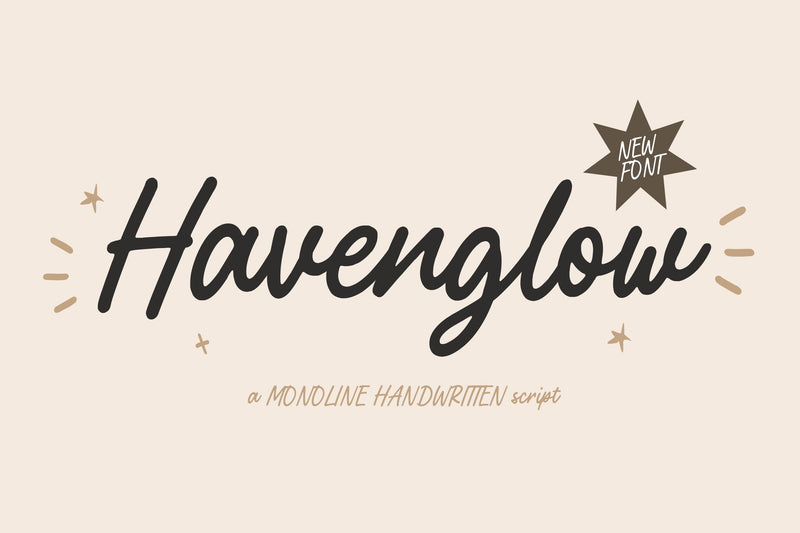
Havenglow Monoline Handwritten Script Font
Havenglow is a Monoline Handwritten Script Font. Sweet and joyful, this font will be ideal for writing wedding invitations, cards or any other design that may need a romantic, personalized touch!